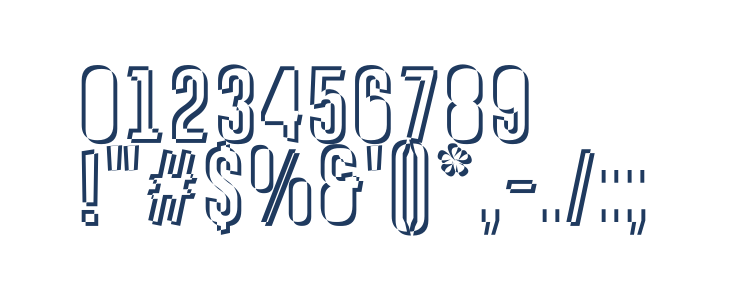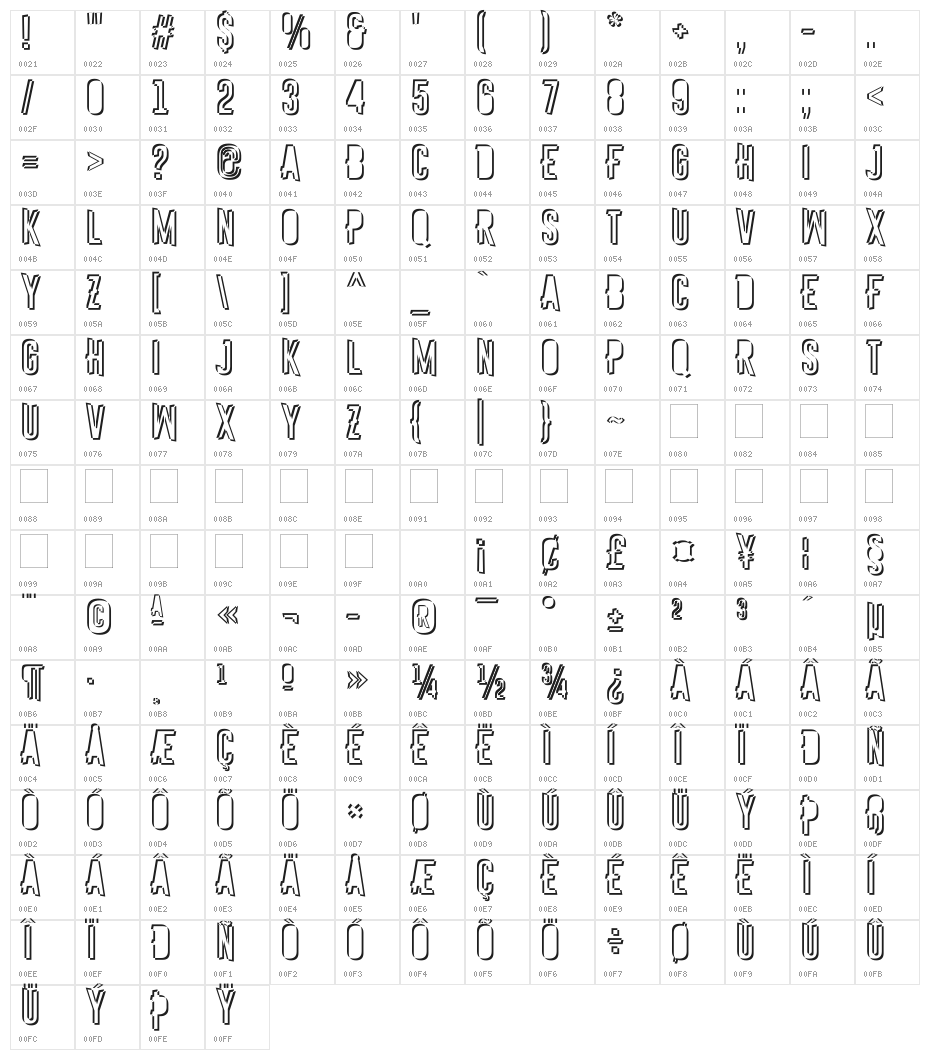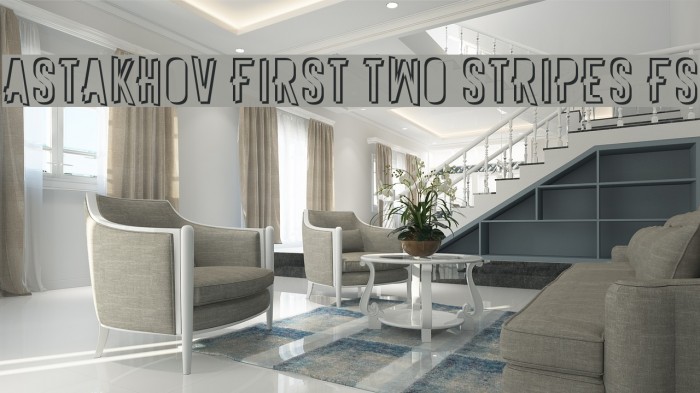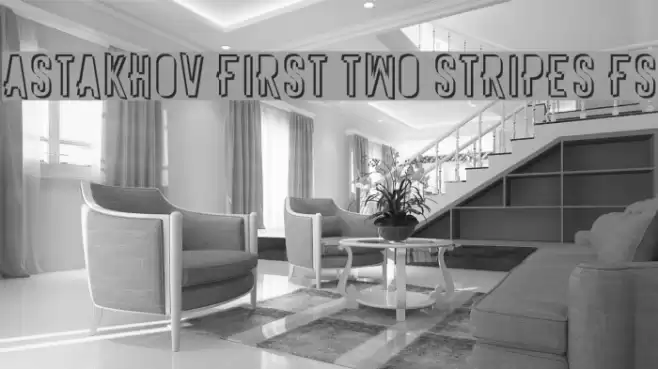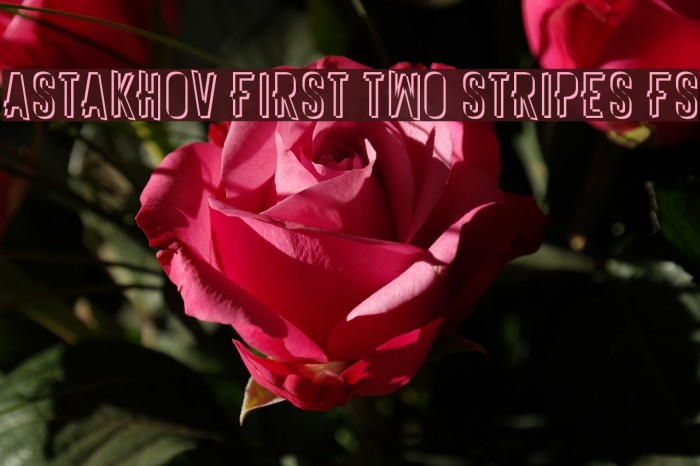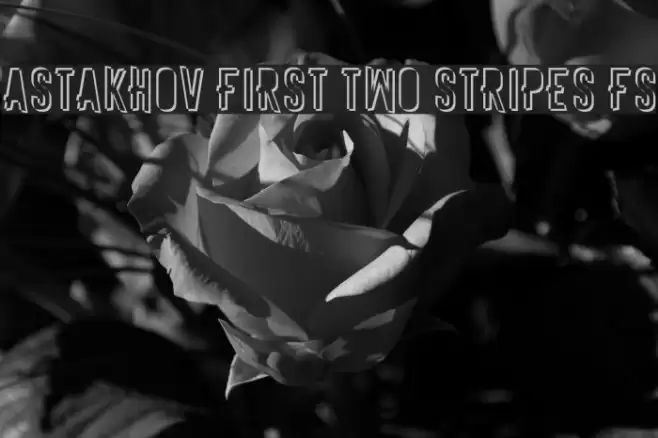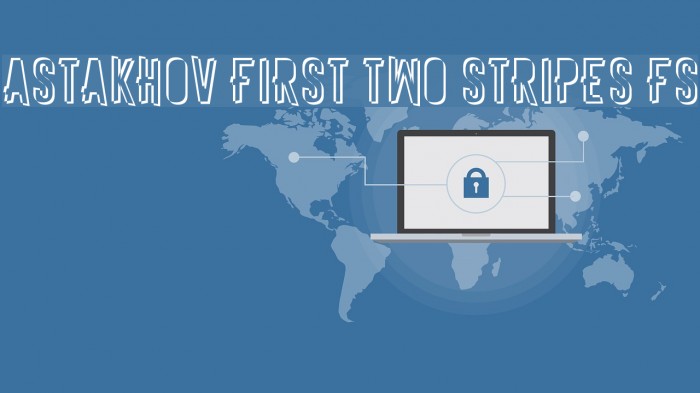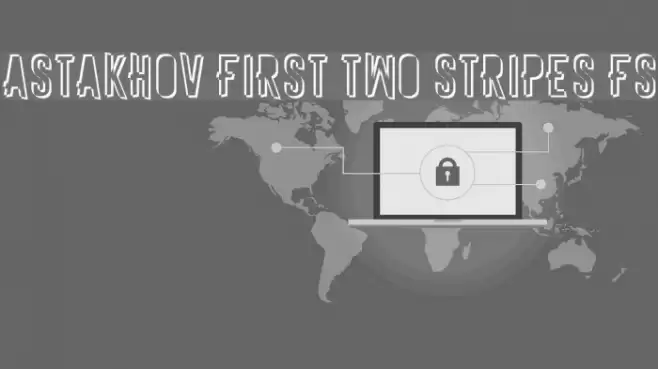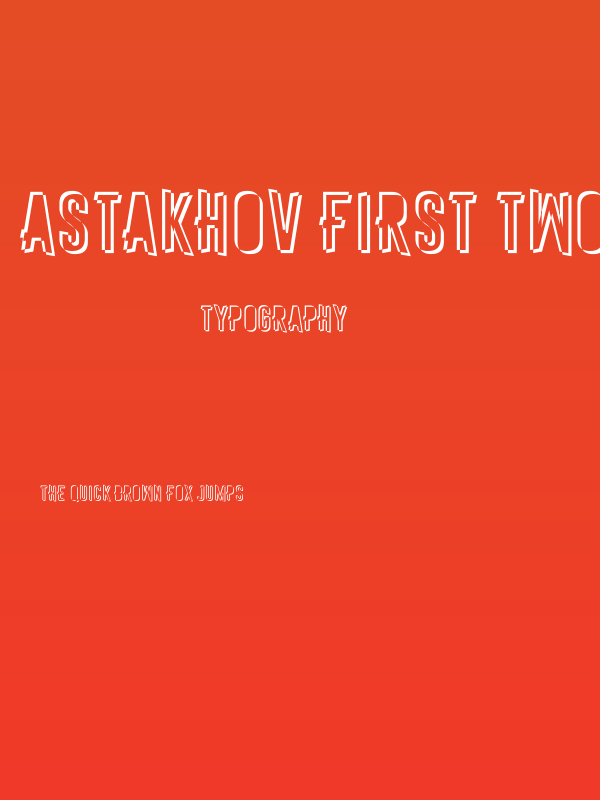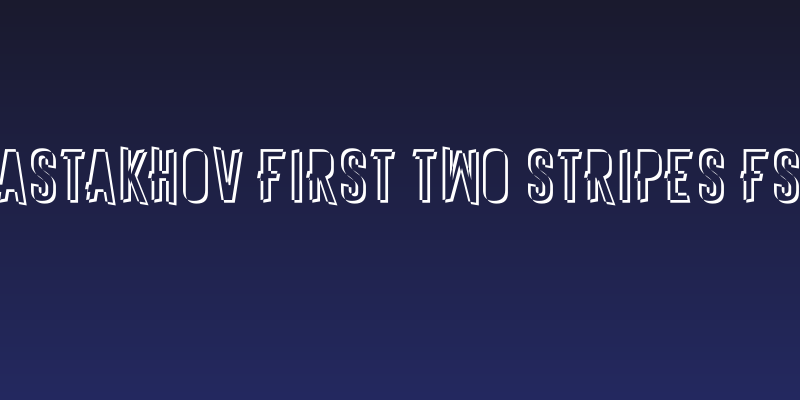
Astakhov First Two Stripes FS Font
Astakhov First Two Stripes FS Description
This font features a bold, decorative style with a unique double-stripe design that adds depth and dimension to each character. The uppercase and lowercase letters maintain a consistent height, creating a uniform appearance. The numerals and special characters follow the same stylistic approach, ensuring a cohesive look across all text elements. The font's geometric structure and sharp angles give it a modern and edgy feel, making it stand out in any design. The spacing between characters is normal, allowing for readability while maintaining its striking visual impact. This font is ideal for projects that require a bold statement, such as posters, headlines, and branding materials.
| Proposed Projects | Ideal for posters, headlines, branding, and any design requiring a bold statement. |